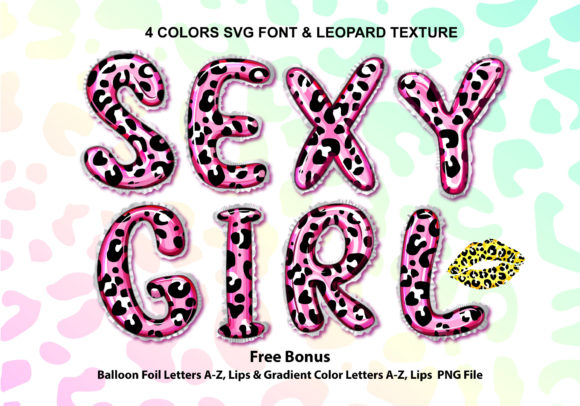
Introducing Sexy Girl Font, a mesmerizing and vibrant collection of fonts that will bring your designs to life! Created by BB Type Studios, this cool color font offers a stunning leopard texture that is sure to captivate and enchant your audience.
One of the standout features of Sexy Girl Font is its PUA encoding, which grants you effortless access to all the beautiful glyphs and swashes. Say goodbye to tedious searching and hello to seamless creativity!
But what truly sets Sexy Girl Font apart is its incredible versatility. With its wide range of styles, this font is the perfect companion for all your design needs. Whether you're working on Halloween-themed projects or simply want to add a touch of boldness to your creations, Sexy Girl Font has got you covered.
Don't just settle for ordinary fonts. Step into a world of extraordinary designs with Sexy Girl Font. Let your imagination run wild and create stunning, eye-catching visuals that will leave a lasting impression.